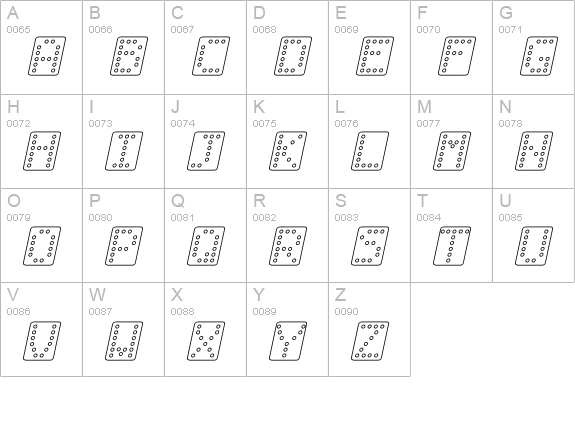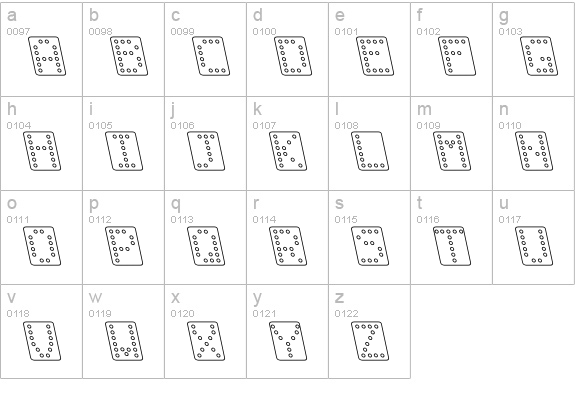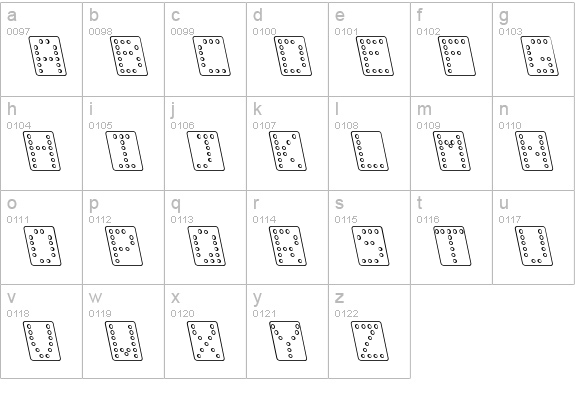
The Domino Bred Kursiv Omrids font is a stylish and modern typeface that exudes elegance and sophistication. Its sleek lines and bold strokes make it perfect for adding a touch of class to any design project. This eye-catching font is ideal for headlines, titles, and branding materials. What sets Domino Bred Kursiv Omrids font apart is its unique blend of traditional and contemporary elements, making it versatile and suitable for a wide range of applications. Whether you're looking to create a professional logo or craft a striking poster, this font has got you covered. Best of all, Domino Bred Kursiv Omrids font is available for free download at FontsMarket.com. You can easily access this stunning font and elevate your designs without breaking the bank. Don't miss out on the opportunity to add this elegant typeface to your font collection today!